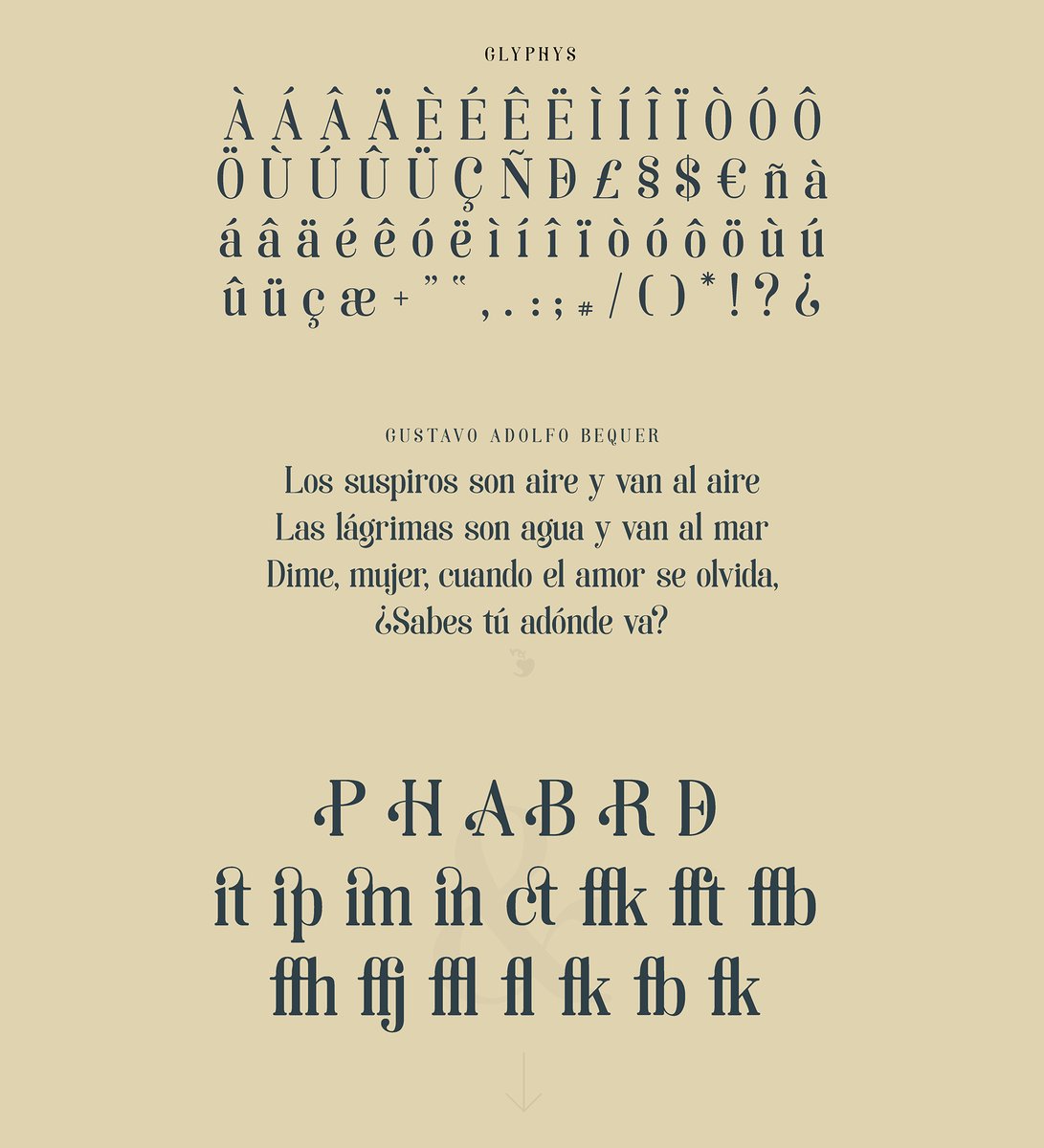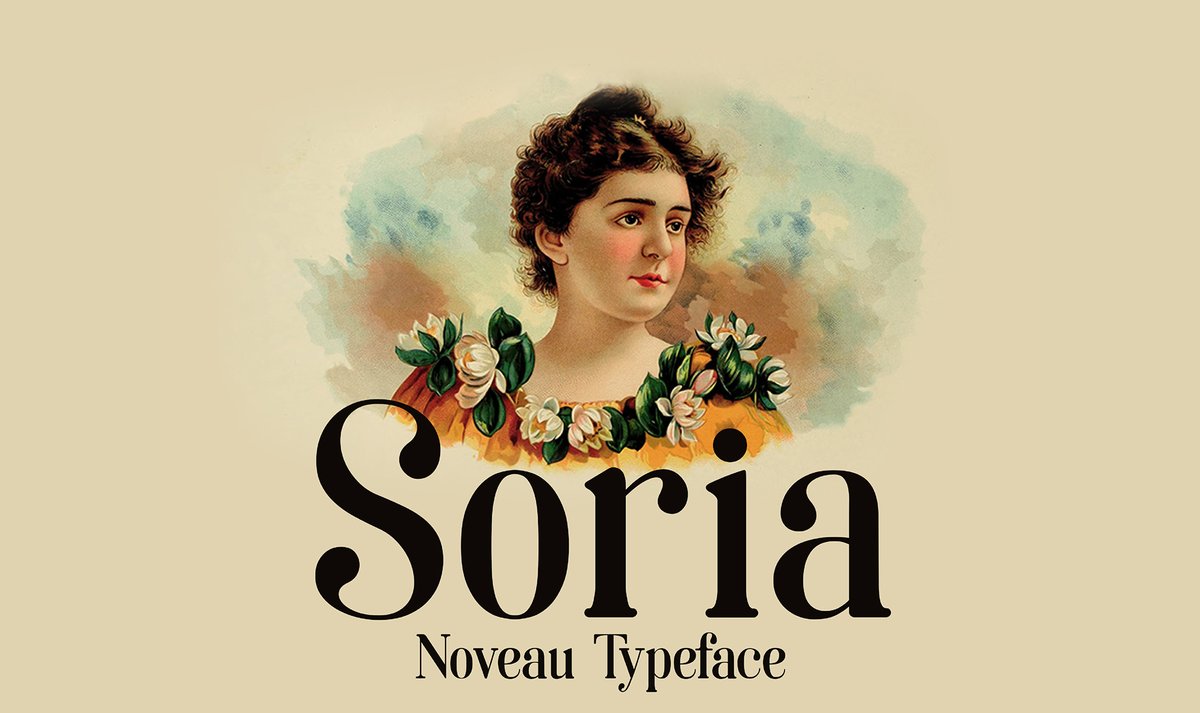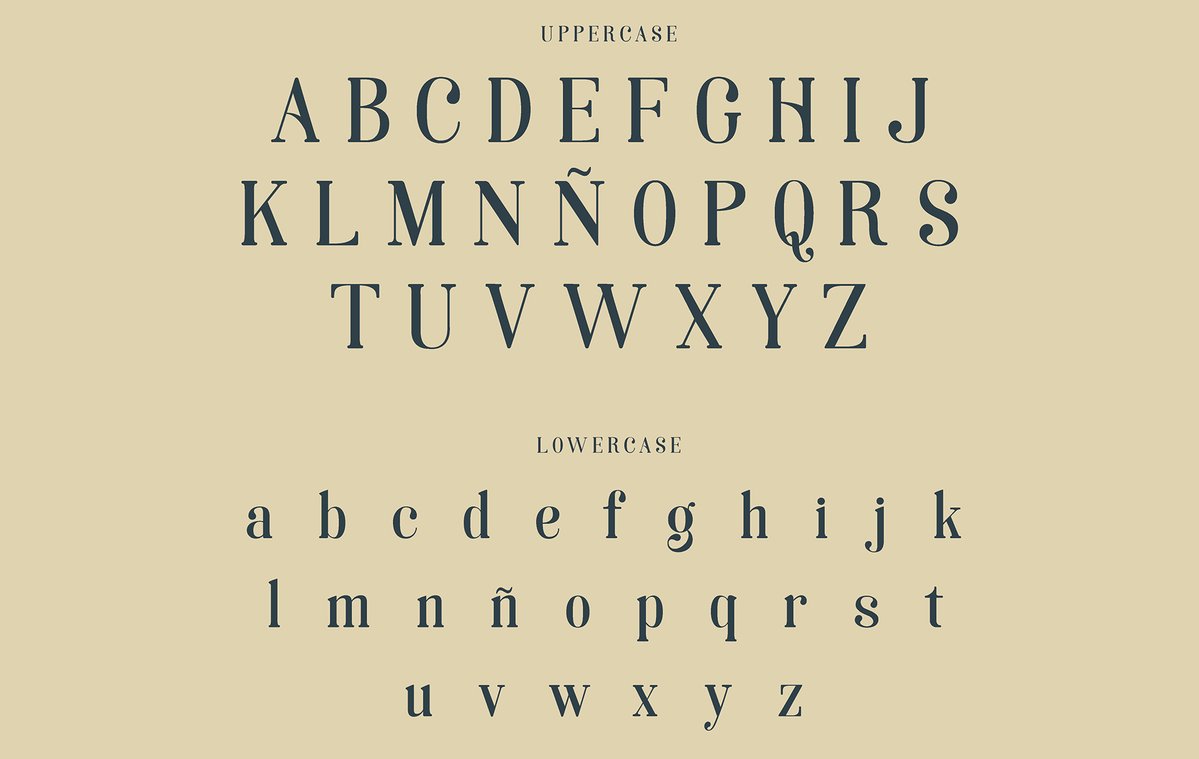
Soria- Free noveau font
Soria is modern, actual type that useful for display texts. Soria offers an expansive set of options to create logos, headlines and titling. It is well suited for books, packaging, editorial, advertising, branding and more. This font has been created by Dani Bydani under art Noveau influence and the didot fonts.